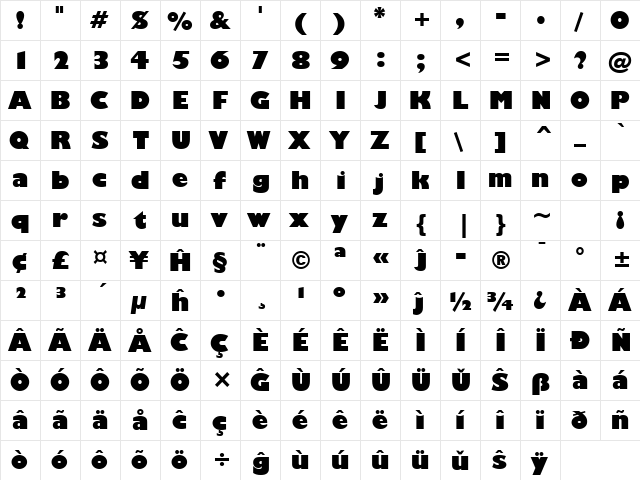
Humanst521 UBd BT Eo Ultra Bold
Design Context for Humanst521 UBd BT Eo Typeface
Humanst521 UBd BT Eo offers clean, dependable letterforms without strong stylistic allegiance, making it a practical choice for designers who need flexibility. The heavy weight commands attention and anchors typographic hierarchies.